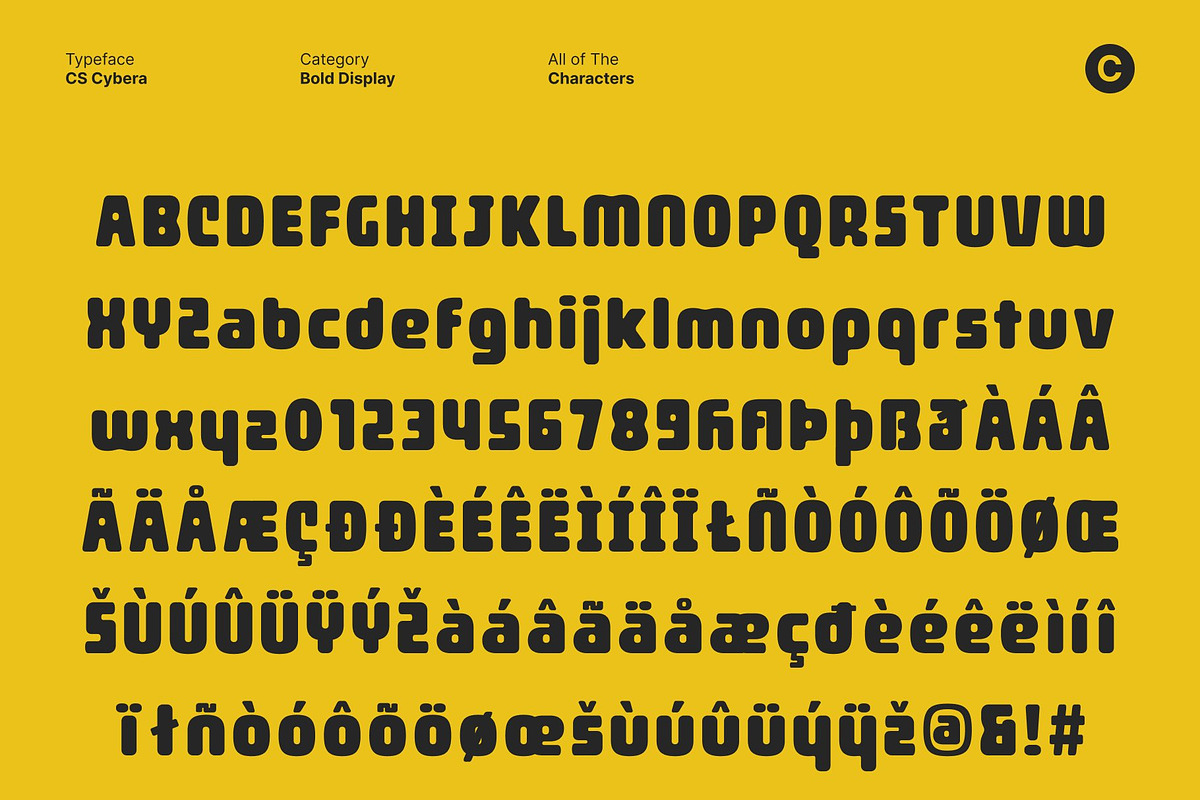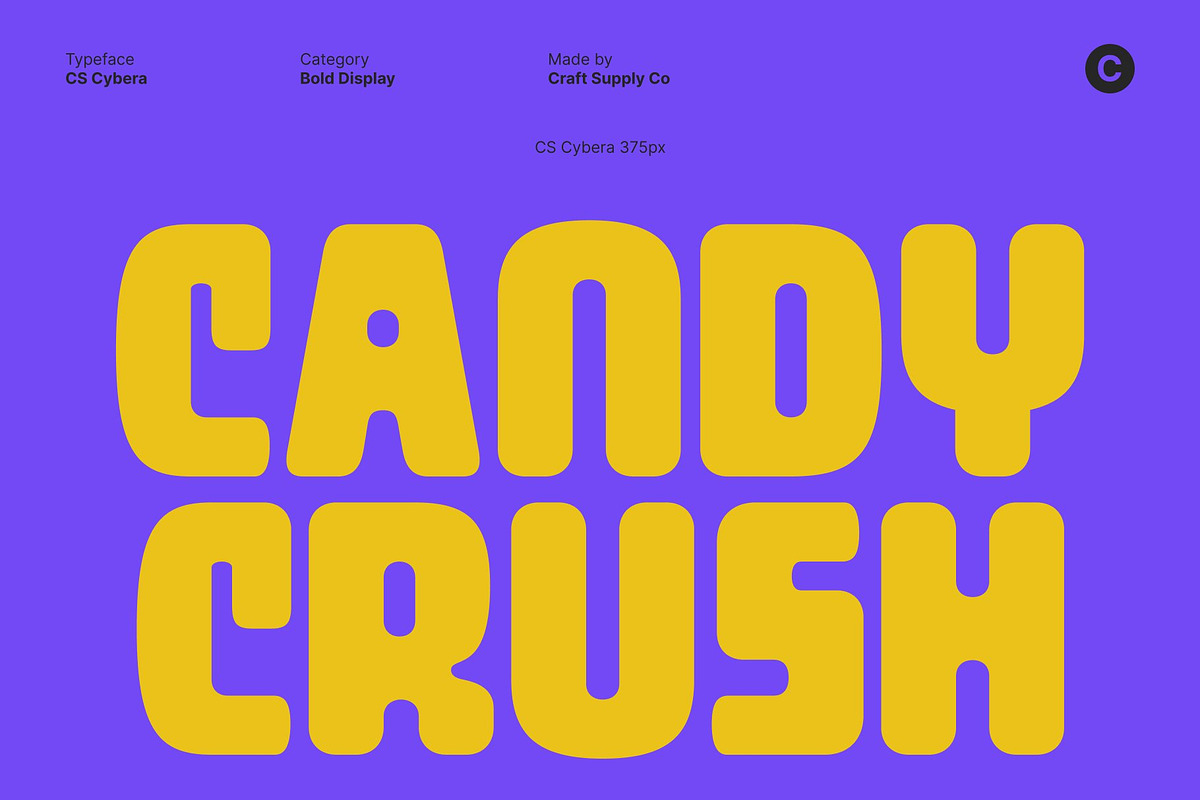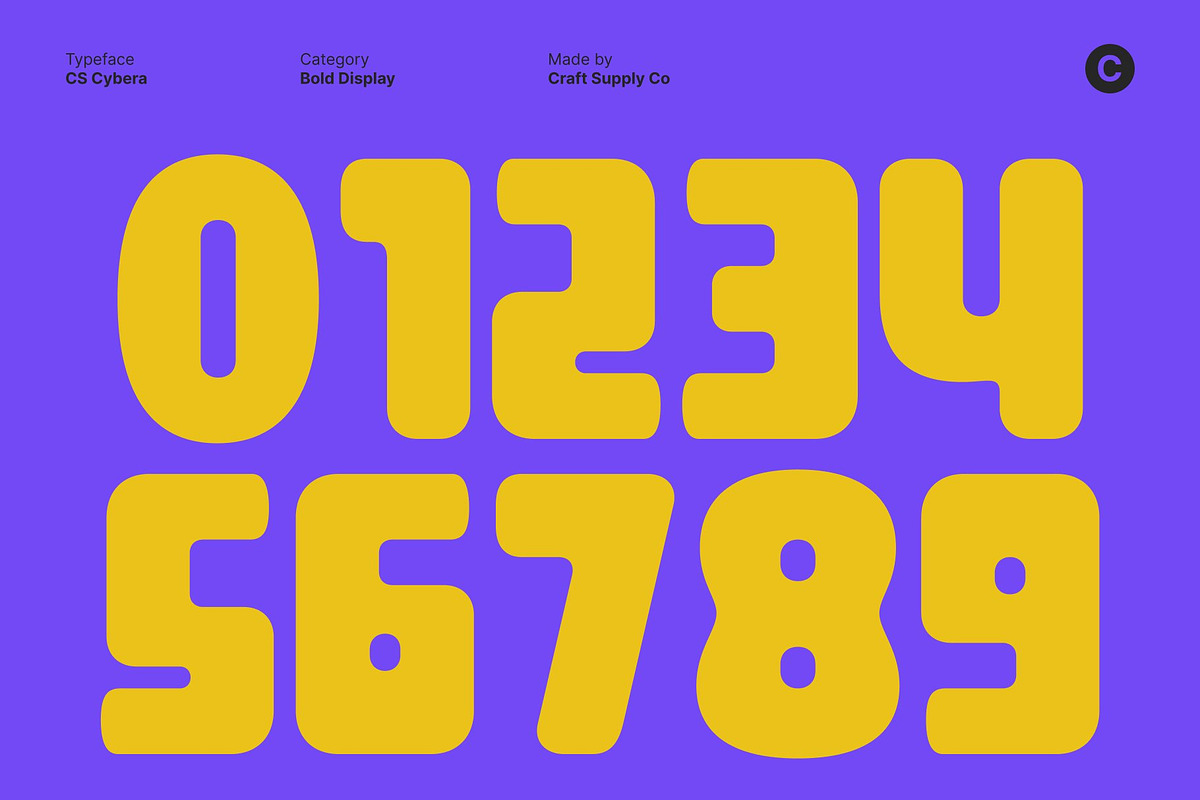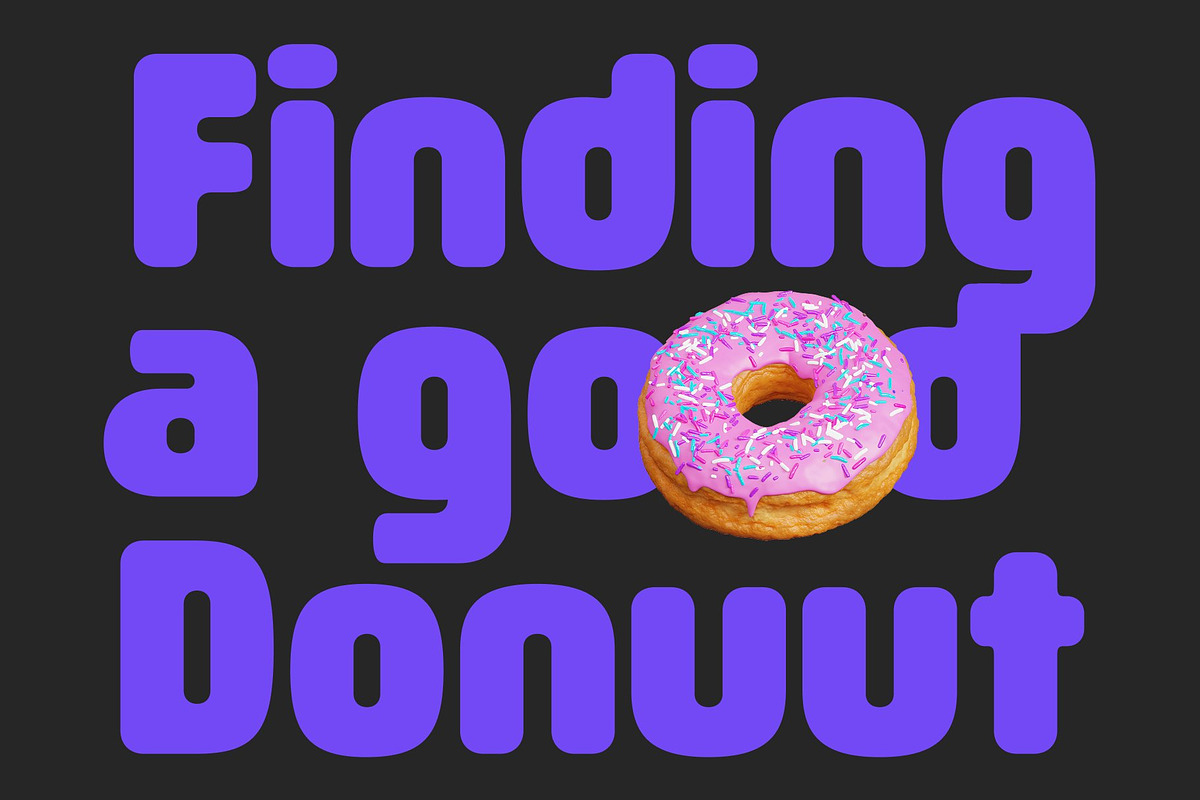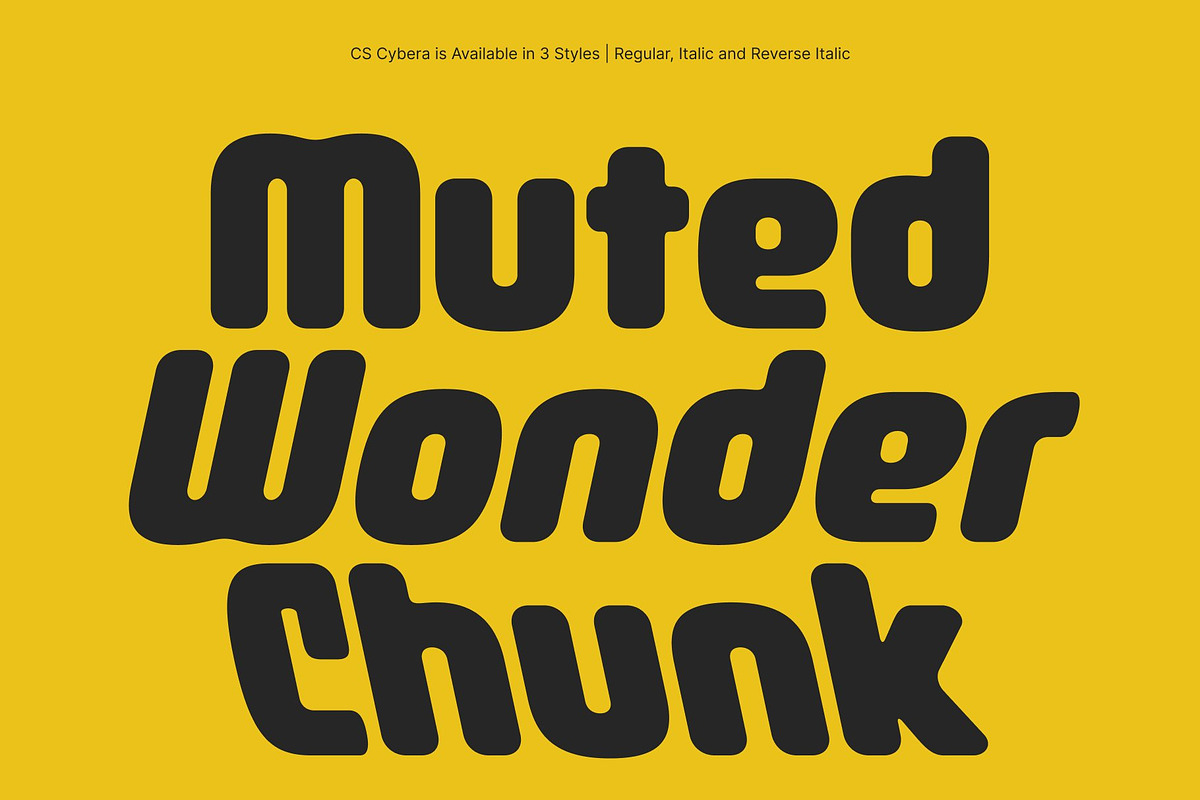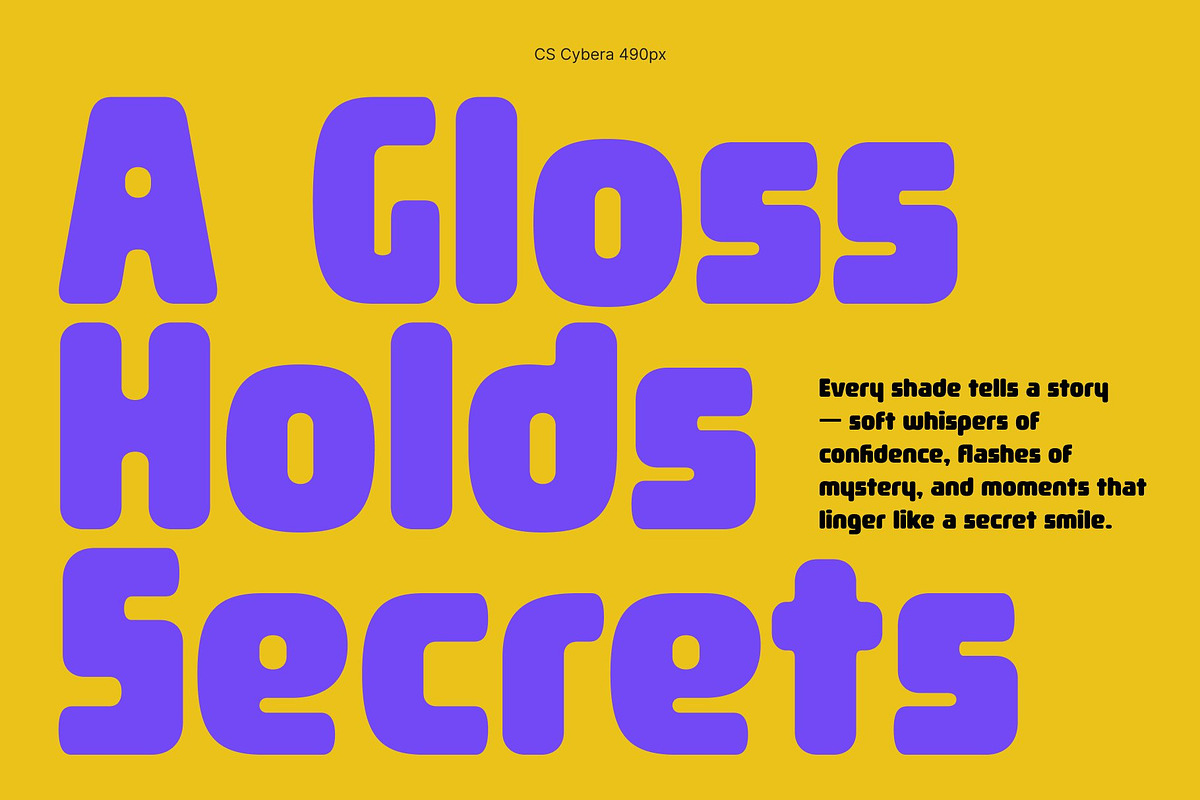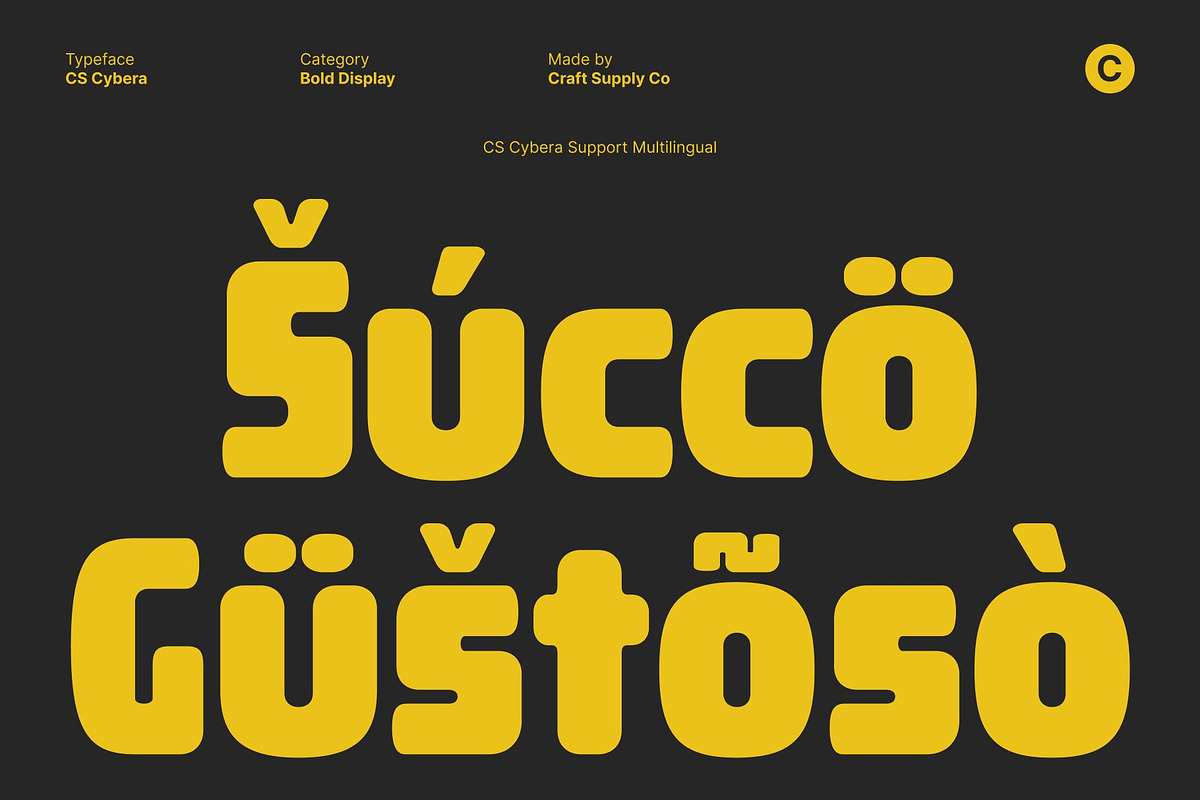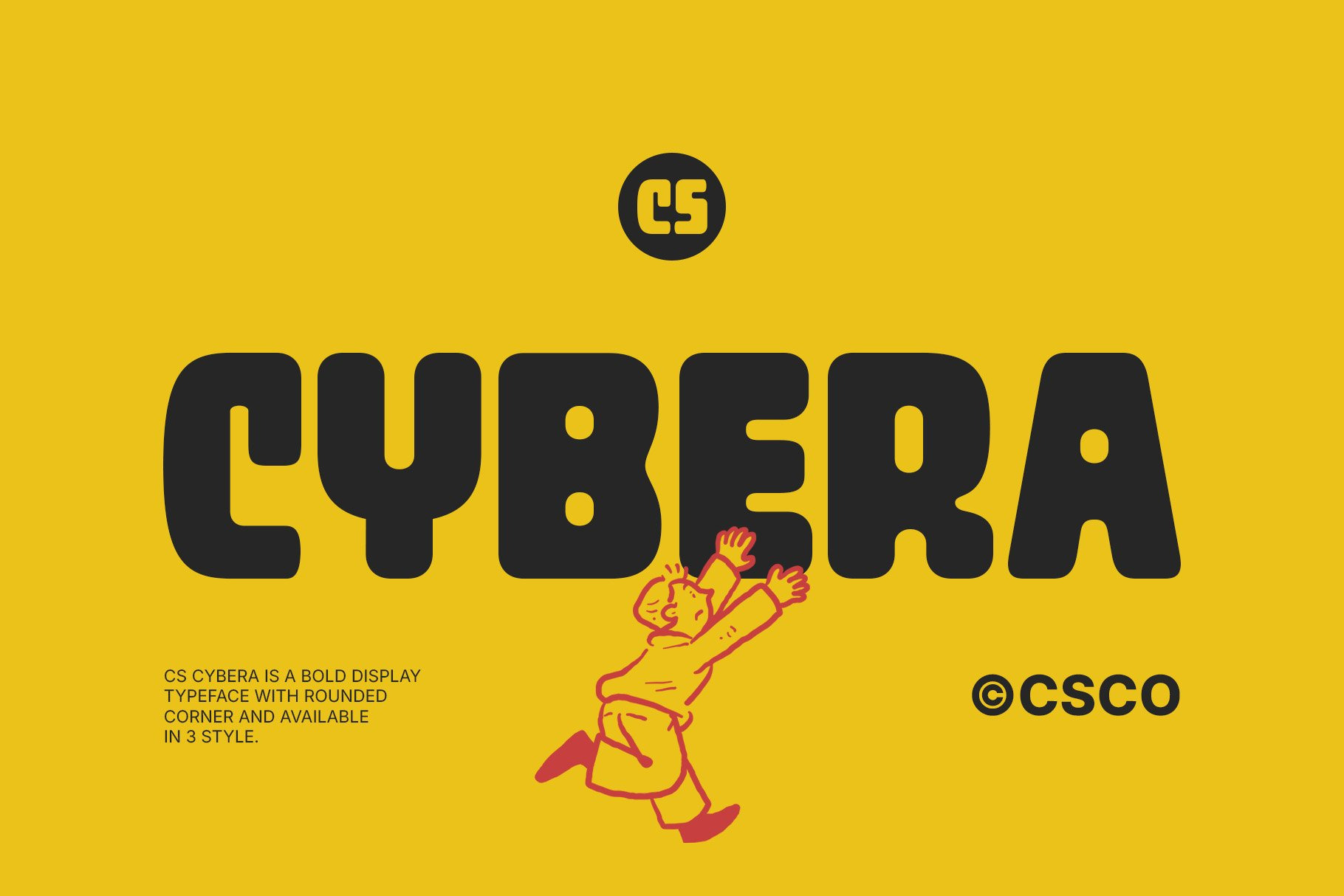
CS Cybera – Bold Display Font
CS Cybera – Bold Design with a Modern Pulse: Rounded Display Sans Serif with Contemporary Energy
Bold and Confident Display Design This is a bold sans serif display font designed to make an impact. With its strong, confident letterforms, it instantly draws attention and conveys a sense of modern authority. Perfect for headlines, branding, and posters, it delivers clarity and presence in every composition.
Rounded Shapes for a Fresh and Friendly Look The rounded contours of this font soften its boldness, creating a modern and approachable tone. This blend of strength and warmth makes it an excellent choice for projects that aim to feel innovative yet inviting, striking the perfect balance between professionalism and playfulness.
Modern Energy for Versatile Use Built with clean geometry and smooth balance, this font adapts seamlessly across digital and print media. Its contemporary character shines in tech branding, fashion campaigns, lifestyle designs, or creative visuals, giving your typography a sleek, forward-looking appeal.
Perfect for Impactful Branding and Design This font is more than a display font it’s a statement of modern creativity and confidence. Whether used for logos, large headlines, or promotional materials, it ensures your message stands out with clarity, boldness, and style, making every design project feel powerful and fresh.